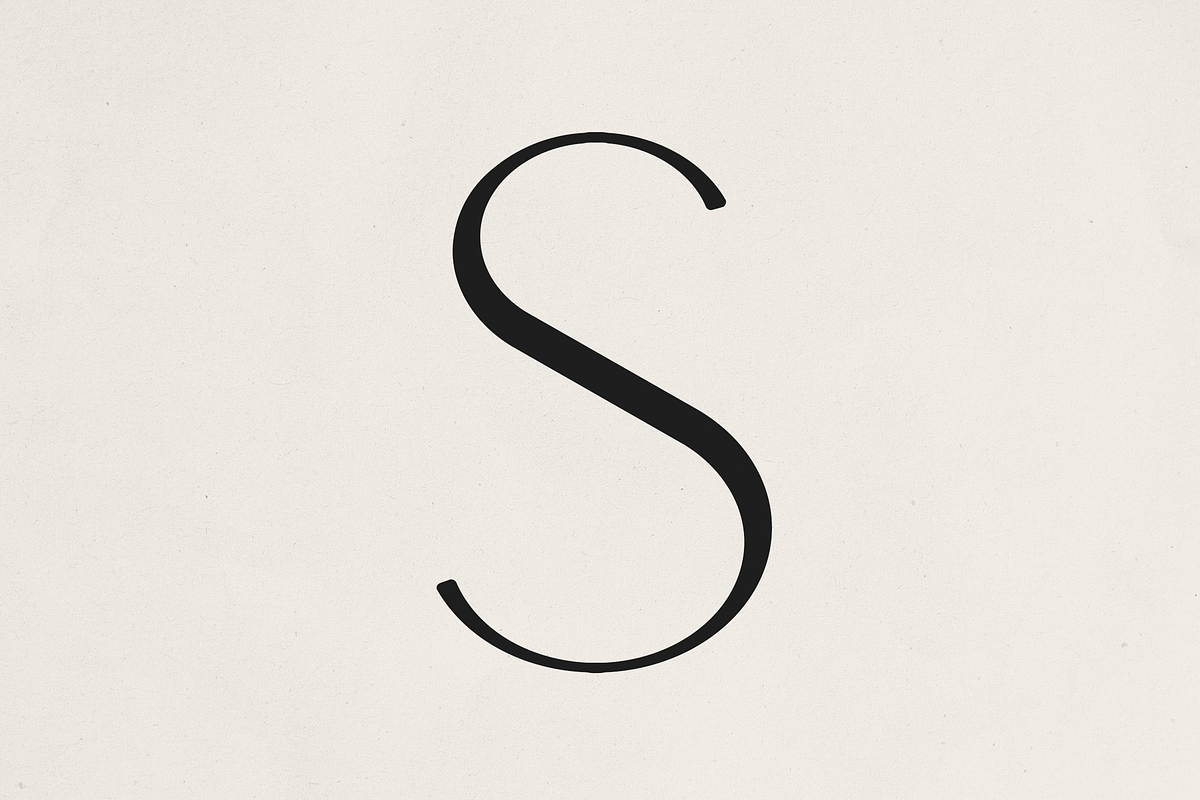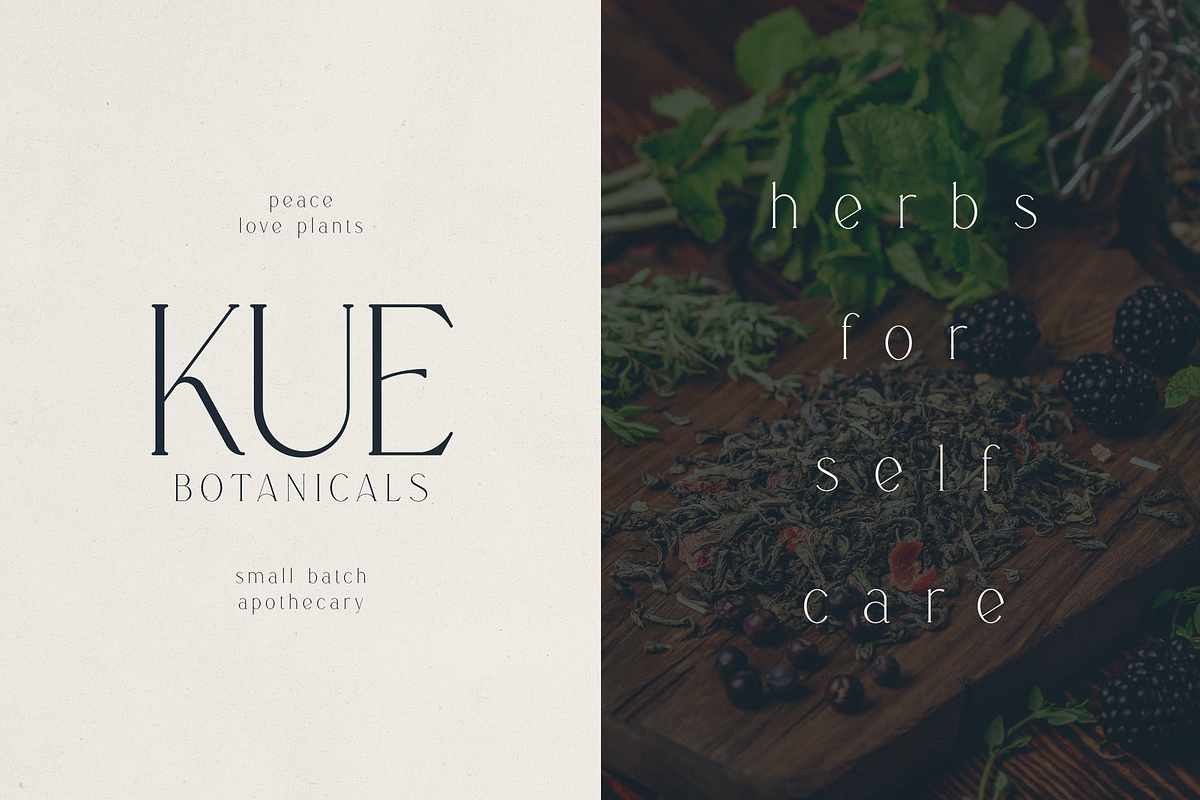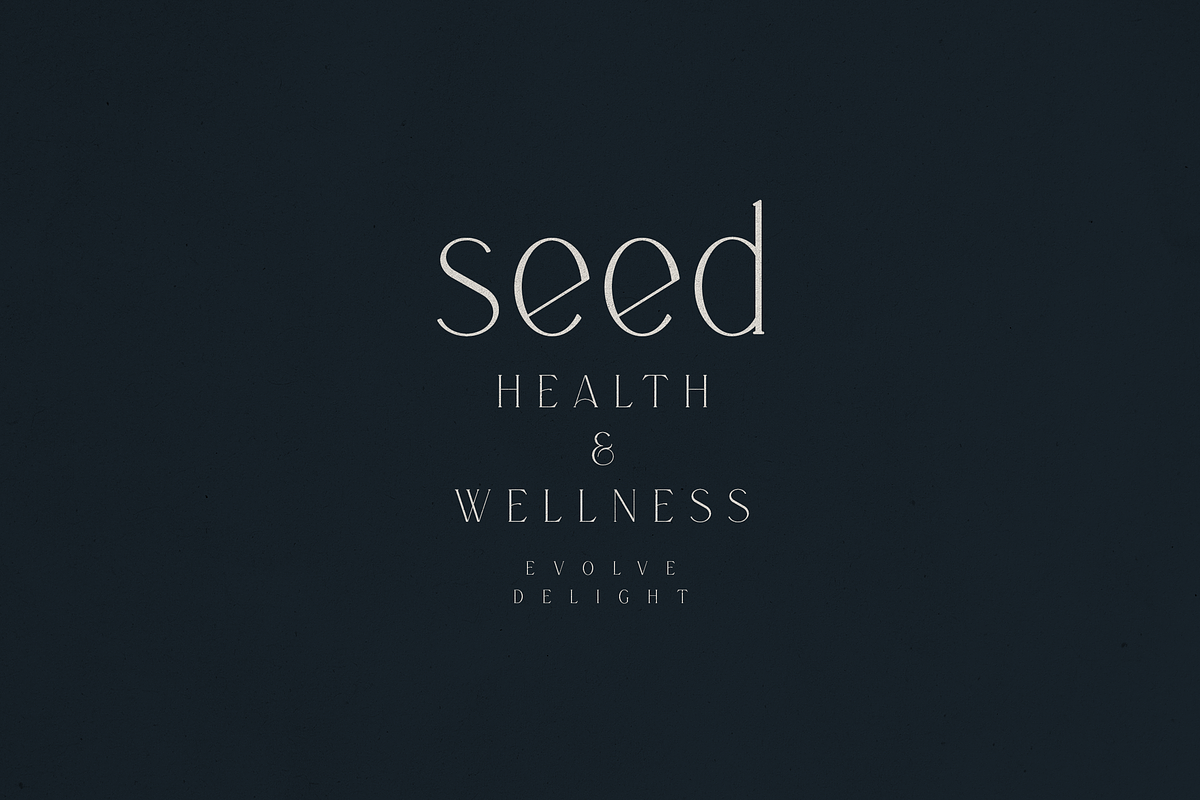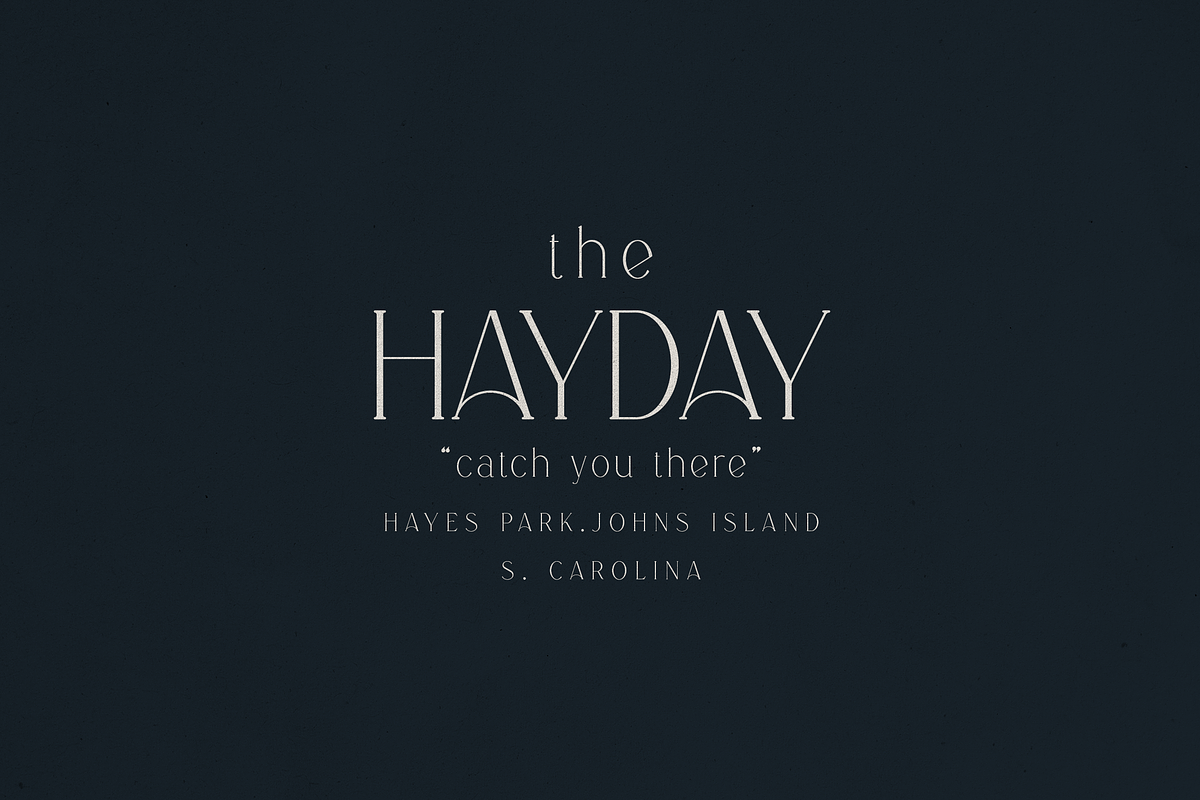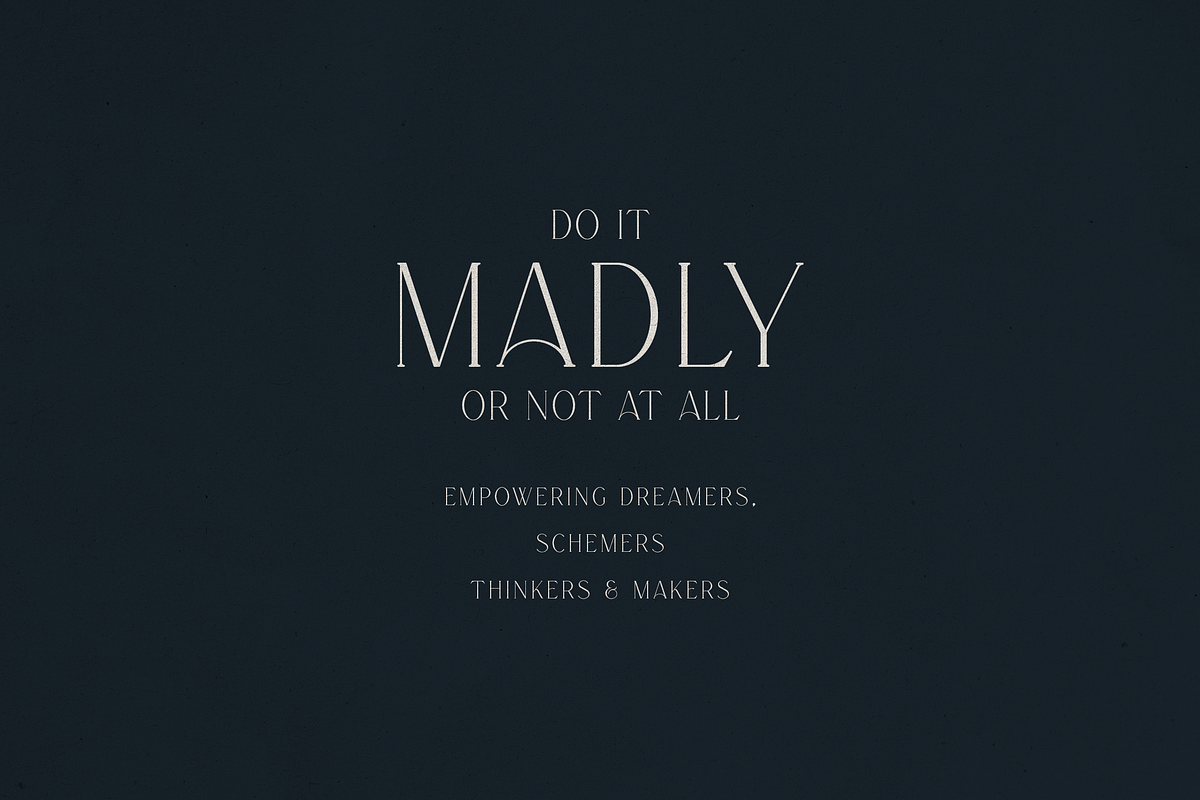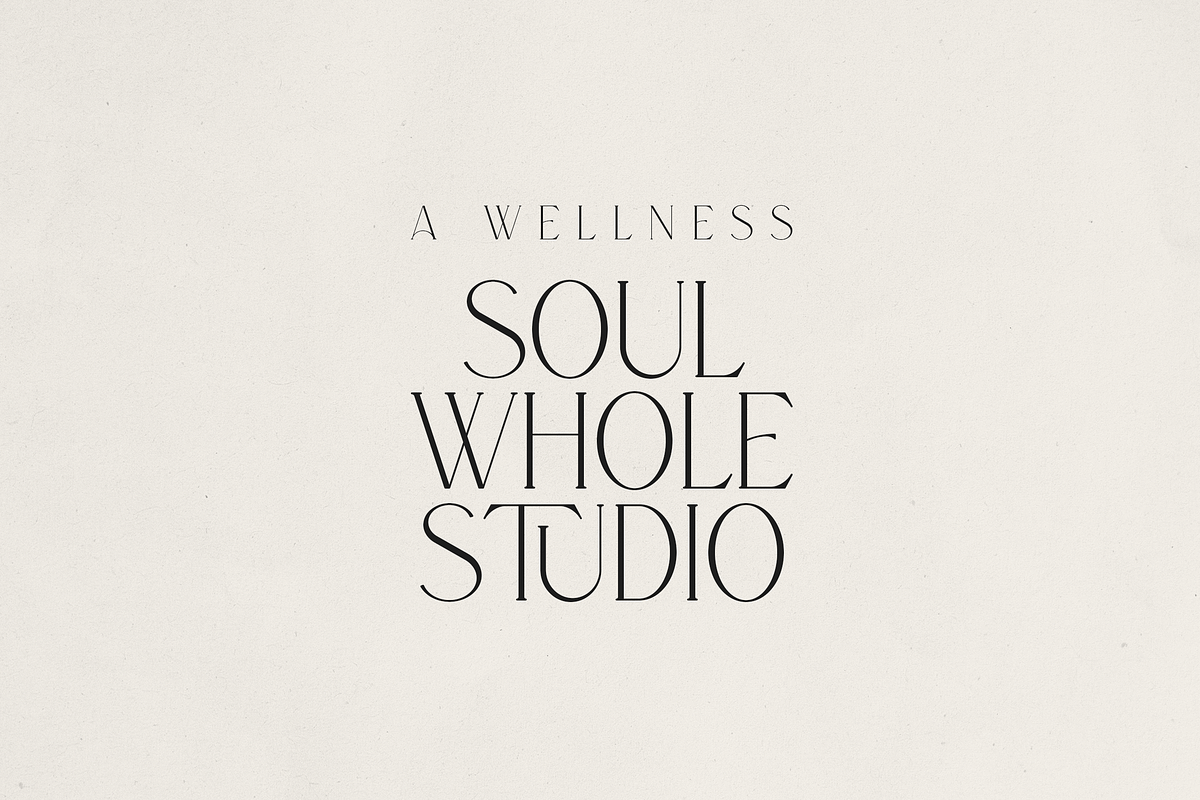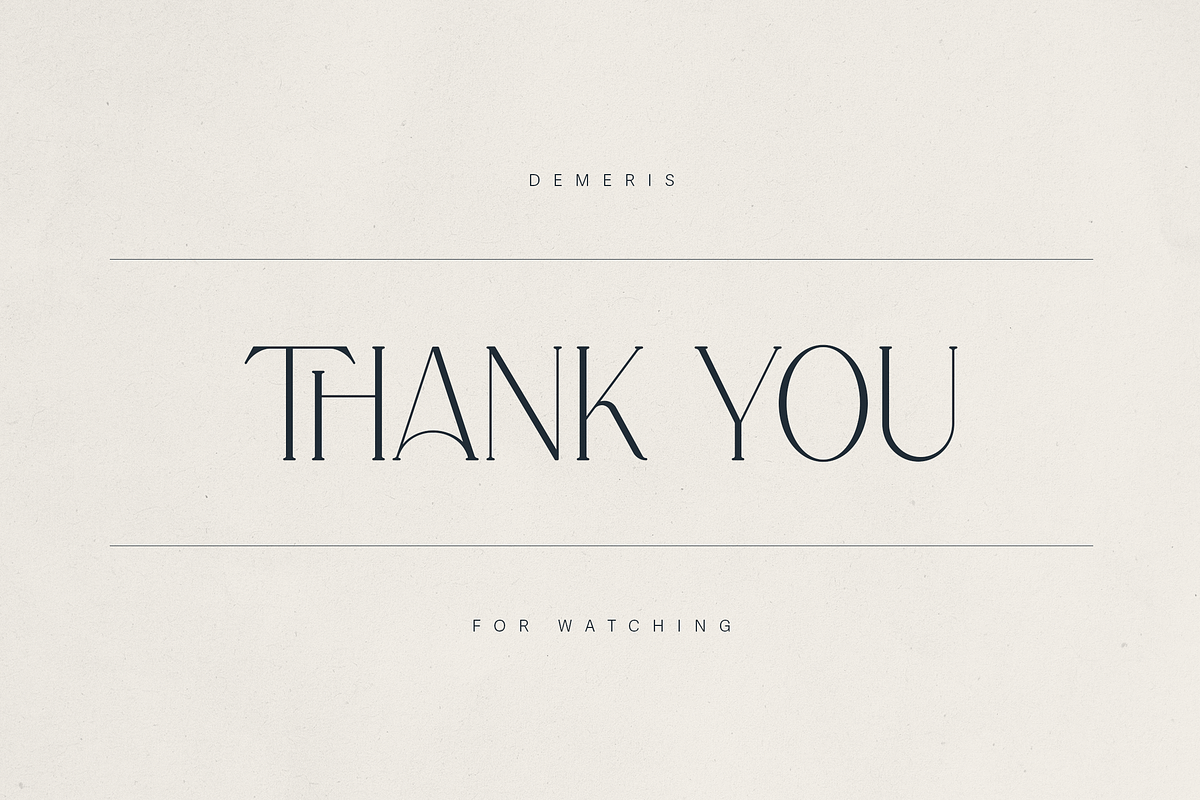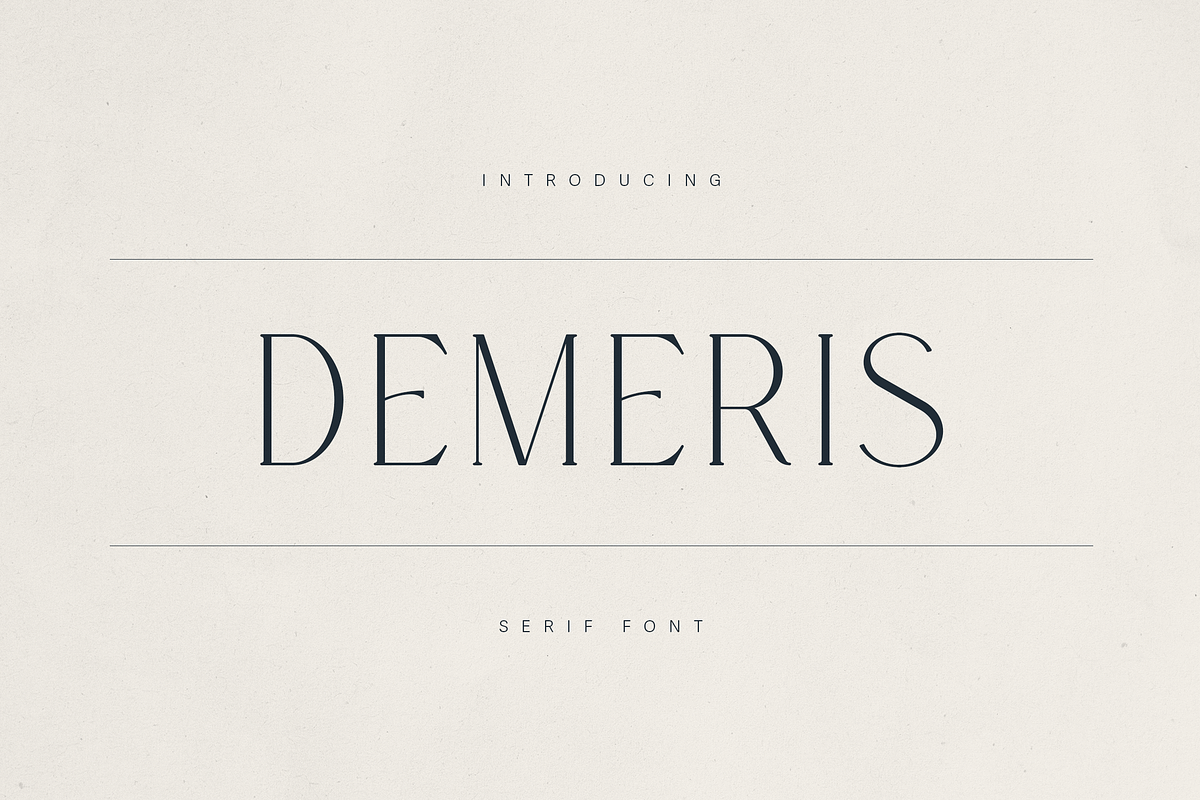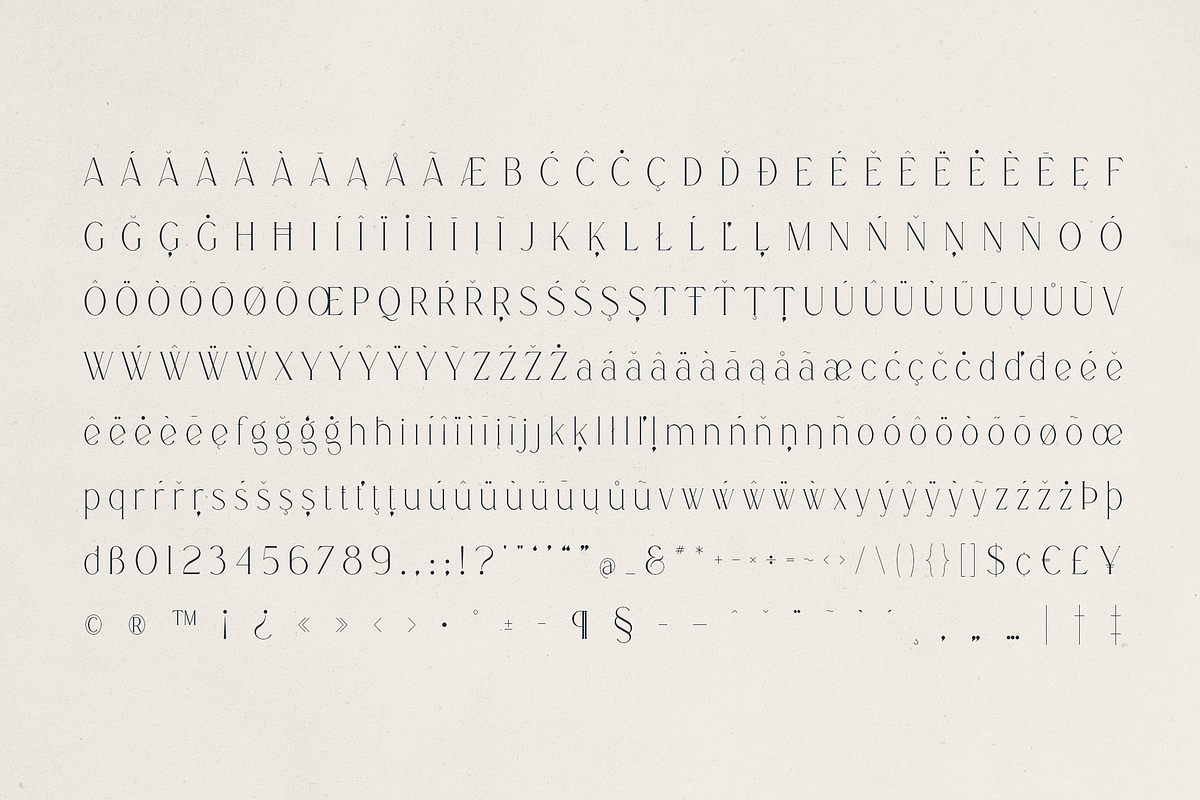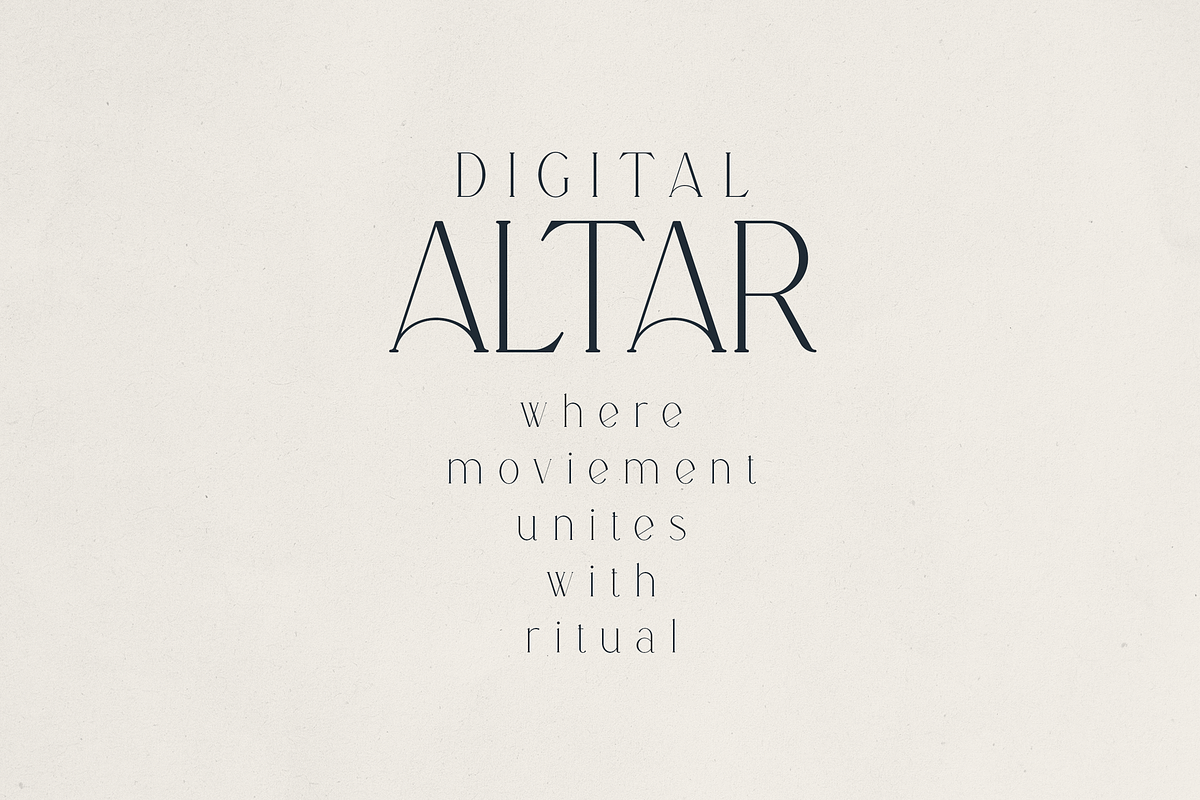
Demeris – A Modern Serif Font
Demeris – A Modern Serif with Poised Elegance
Demeris is a refined high-contrast serif typeface that blends timeless sophistication with contemporary elegance. With its slender strokes, fine curves, and sharp, architectural serifs, Demeris exudes a sense of luxury and modern minimalism—perfect for brands seeking both beauty and precision.
Crafted for versatility, Demeris includes uppercase and lowercase letters, carefully designed glyphs, and multilingual support for over 80 languages. It adapts seamlessly to branding, editorial layouts, packaging, invitations, and digital design.
Whether creating a boutique logo, a minimalist magazine spread, or an elegant wellness brand identity, Demeris delivers intentional design and quiet confidence in every letterform.
- Modern high-contrast serif with a unique personality
- Elegant uppercase & lowercase letters
- Supports 80+ languages
- Ideal for branding, logos, editorial, invitations, and packaging